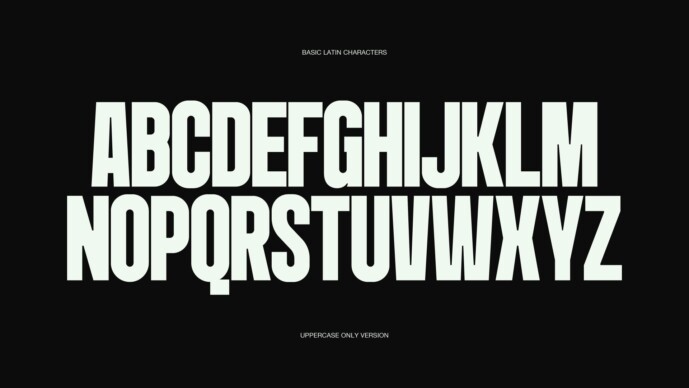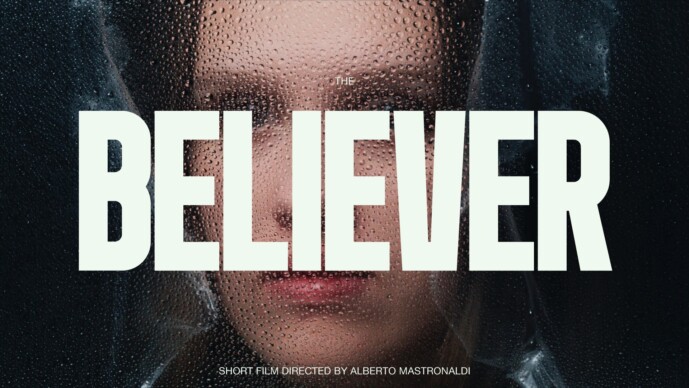
Bigger Font
Designer: Thunder Studio
Bigger Font is a condensed display font designed to put an end to all discussions about display fonts! Inspired by PangramPangram’s Formula and Helvetica Condensed, it’s perfect when you need a quick and bold headline.
Bigger’s defining characteristic is condensed size, minimal roundness, and most important, a small “gap” in collisions. This gap emphasize the “blockiness” of the font and also gives Bigger it’s original look.